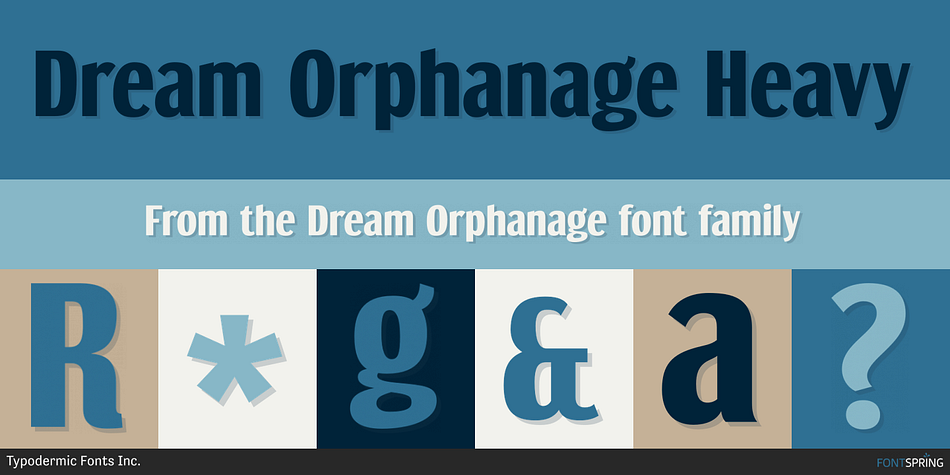
Dream Orphanage Heavy
Dream Orphanage is a sans serif font family. This typeface has fourteen styles and was published by Typodermic Fonts Inc.
Welcome to Dream Orphanage, a typeface that will bring warmth and personality to your design projects! With its tidy and friendly sans-serif style, Dream Orphanage is a high-quality reconstruction of the beloved 1990s typeface, Dream Orphans.
But we didn’t stop there. We’ve included an alternative style of “g” in OpenType-capable apps, giving you even more creative freedom to make your designs stand out. And with seven weights and italics to choose from, you’ll have no shortage of options to craft the perfect look for your project.
Whether you’re designing a greeting card for a loved one, a website for a small business, or anything in between, Dream Orphanage will bring a touch of charm and friendliness that will capture the hearts of your audience. So don’t wait—start creating today with Dream Orphanage!